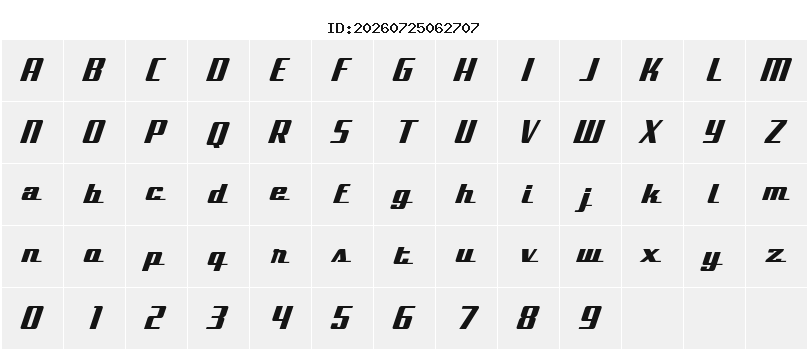
Global Preview
• Font Name: Global
• Font Style: RegularScript
• Font ID: Macromedia Fontographer 4.1 Global RegularScript
• Full Font Name: Global RegularScript
• Version: Macromedia Fontographer 4.1 04/06/2002
• PostScript Name: GlobalRegularScript
• Character Count: 251
About Global.ttf
Global.ttf is a modern, elegant sans-serif font designed for ultimate readability and visual harmony. Perfect for branding, headlines, web design, and print materials.